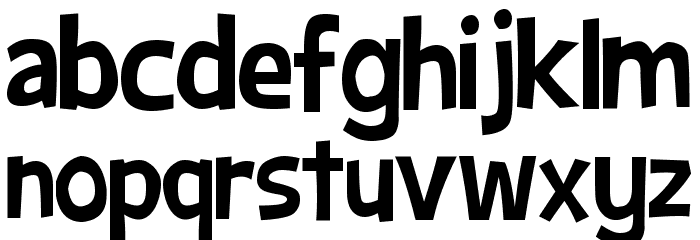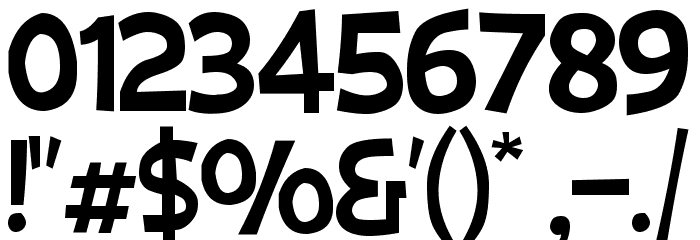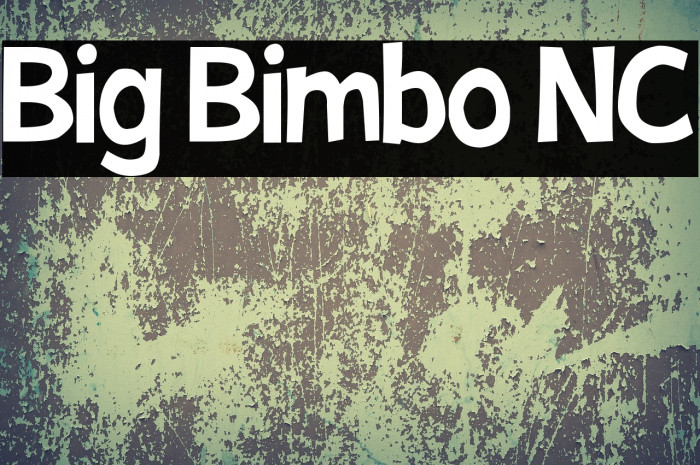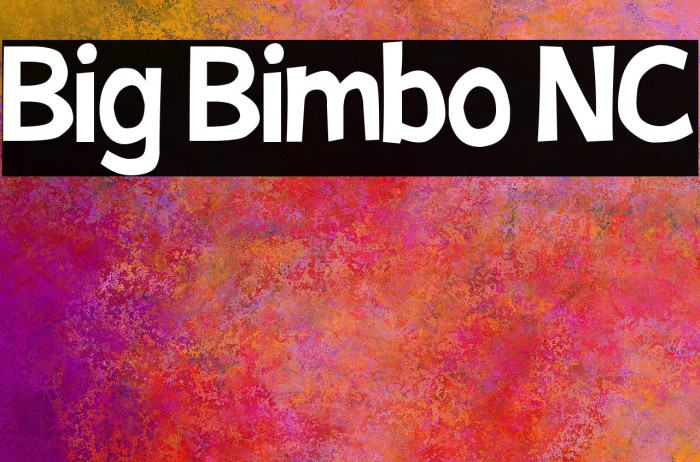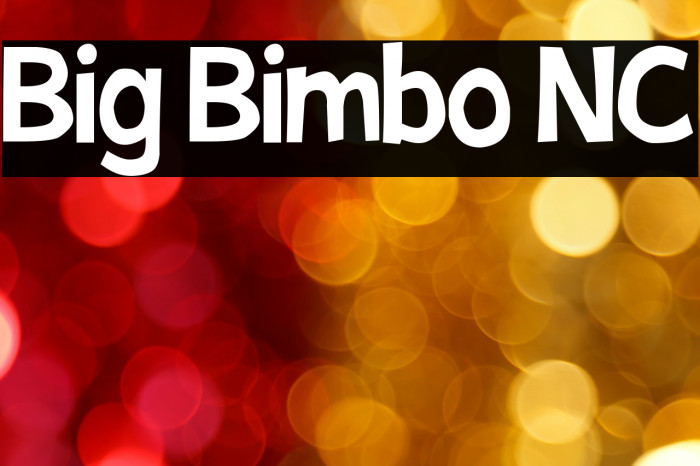
Big Bimbo NC Font
This font features a bold and playful style with a slightly irregular and hand-drawn appearance. The characters have a rounded and friendly look, with a consistent thickness throughout, giving it a uniform and cohesive feel. The uppercase and lowercase letters are well-proportioned, and the numbers are clear and legible. Special characters are included, maintaining the same playful aesthetic. This font is suitable for projects that require a fun and approachable vibe, making it ideal for children's books, casual branding, or creative posters.
A bold, playful font with a hand-drawn, rounded style.
- Proposed Projects: Ideal for children's books, casual branding, creative posters, and playful designs.
- Overall Style: Playful, Casual